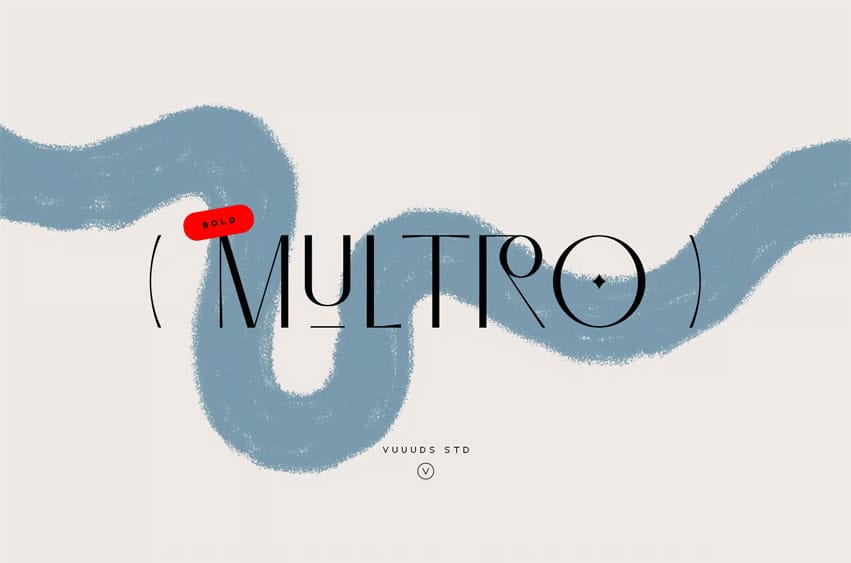
Multro Bold Font is a bold version of the previous Multro font from our studio. Multro Bold is a modern experimental display font; every single letter has been uniquely crafted.
Foreign languages support: ÀÁÂÃÄÅÆÇÈÉÊËÌÍÎÏÐÑÒÓÔÕÖØÙÚÛÜÝàáâãäåæçèéêëìíîïðñòóôõöøùúûüýÿ